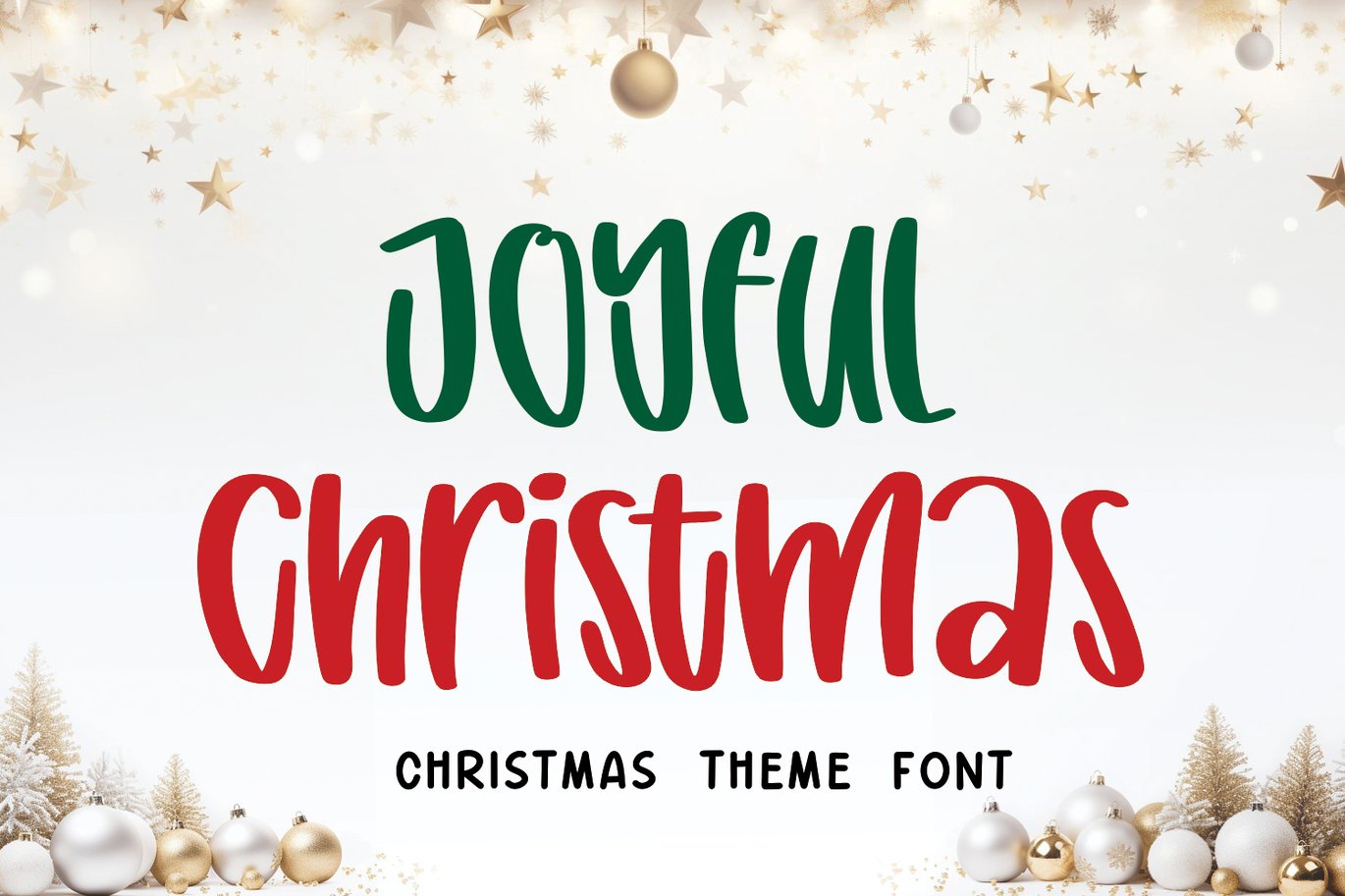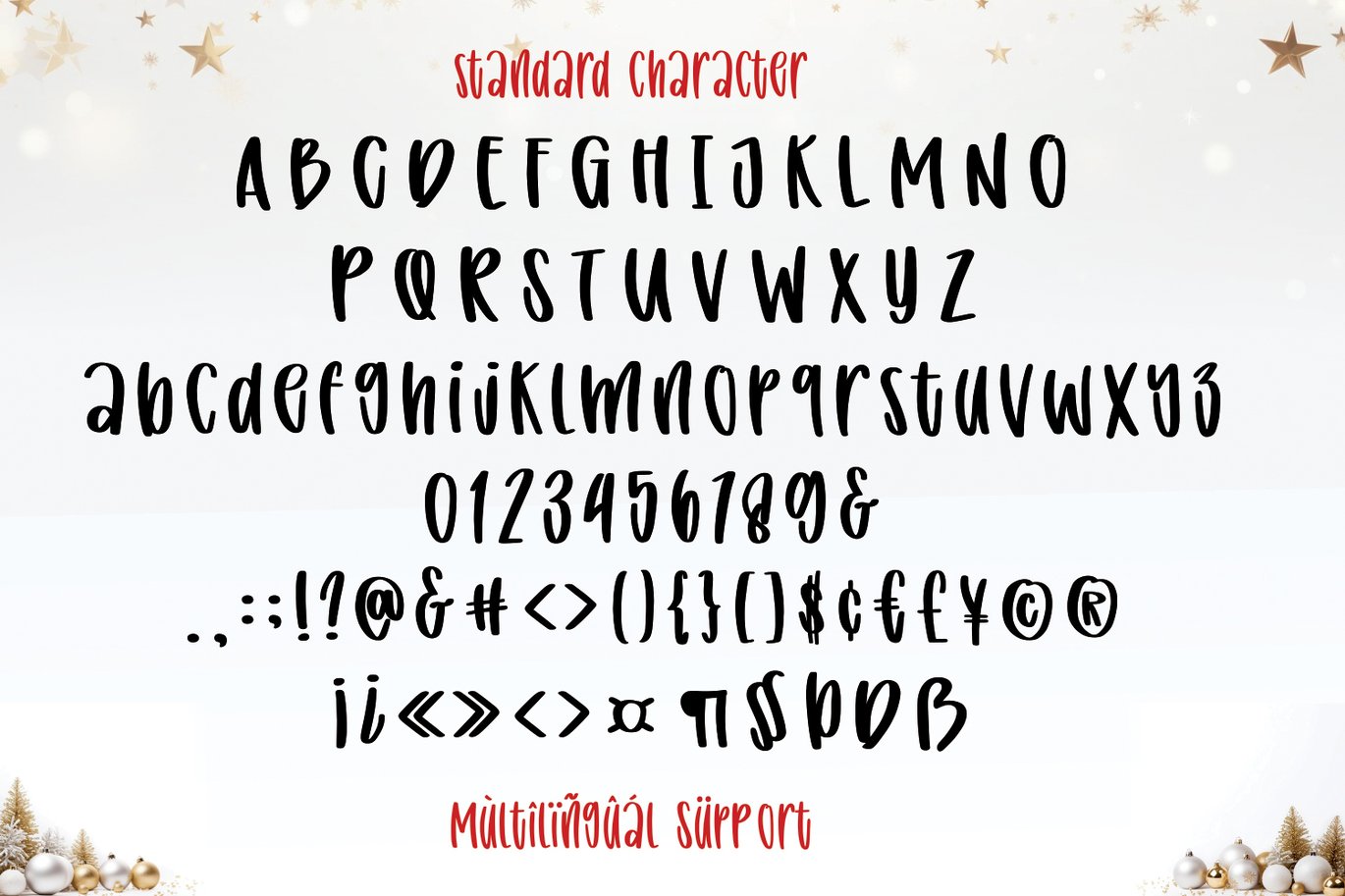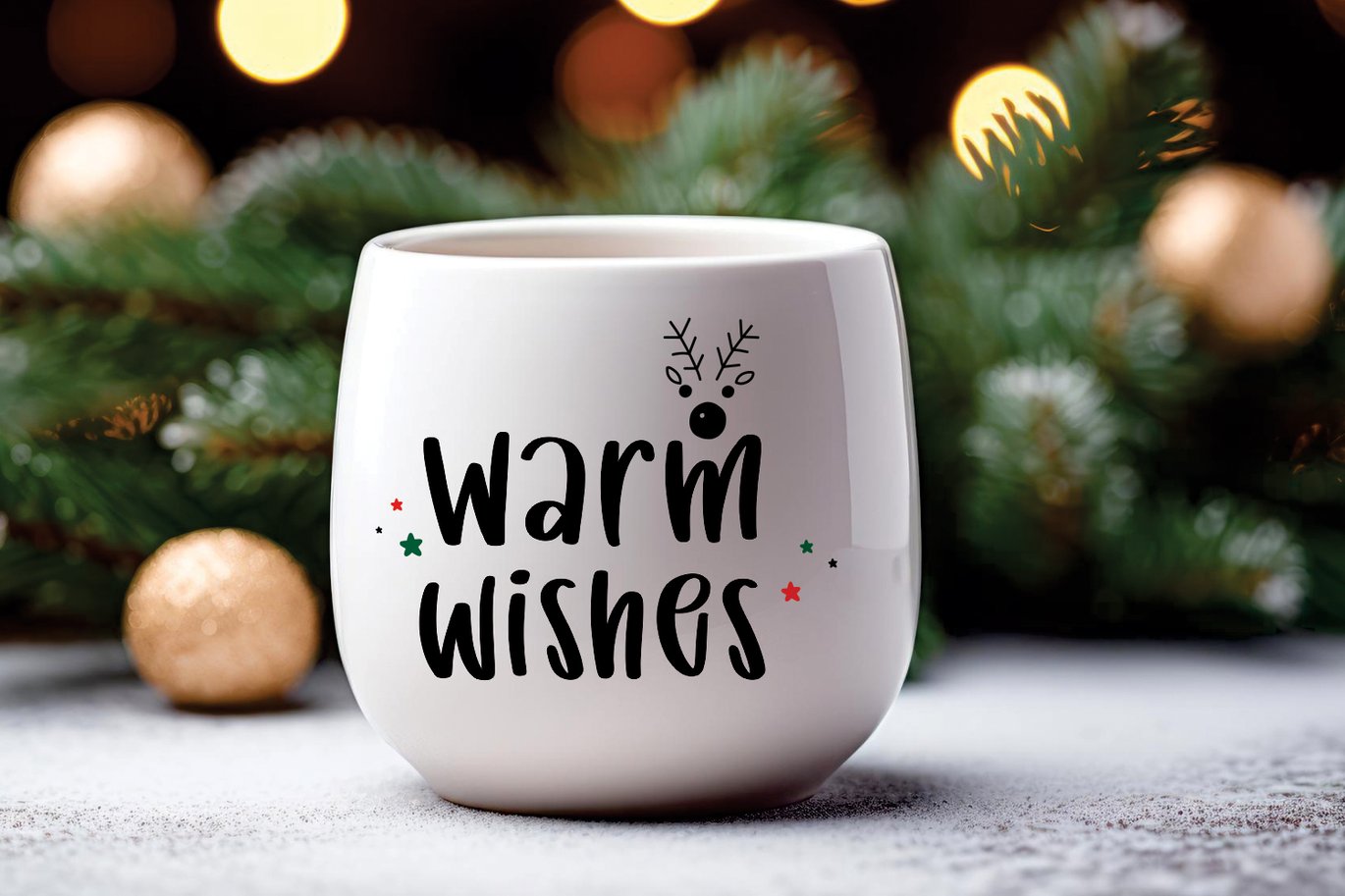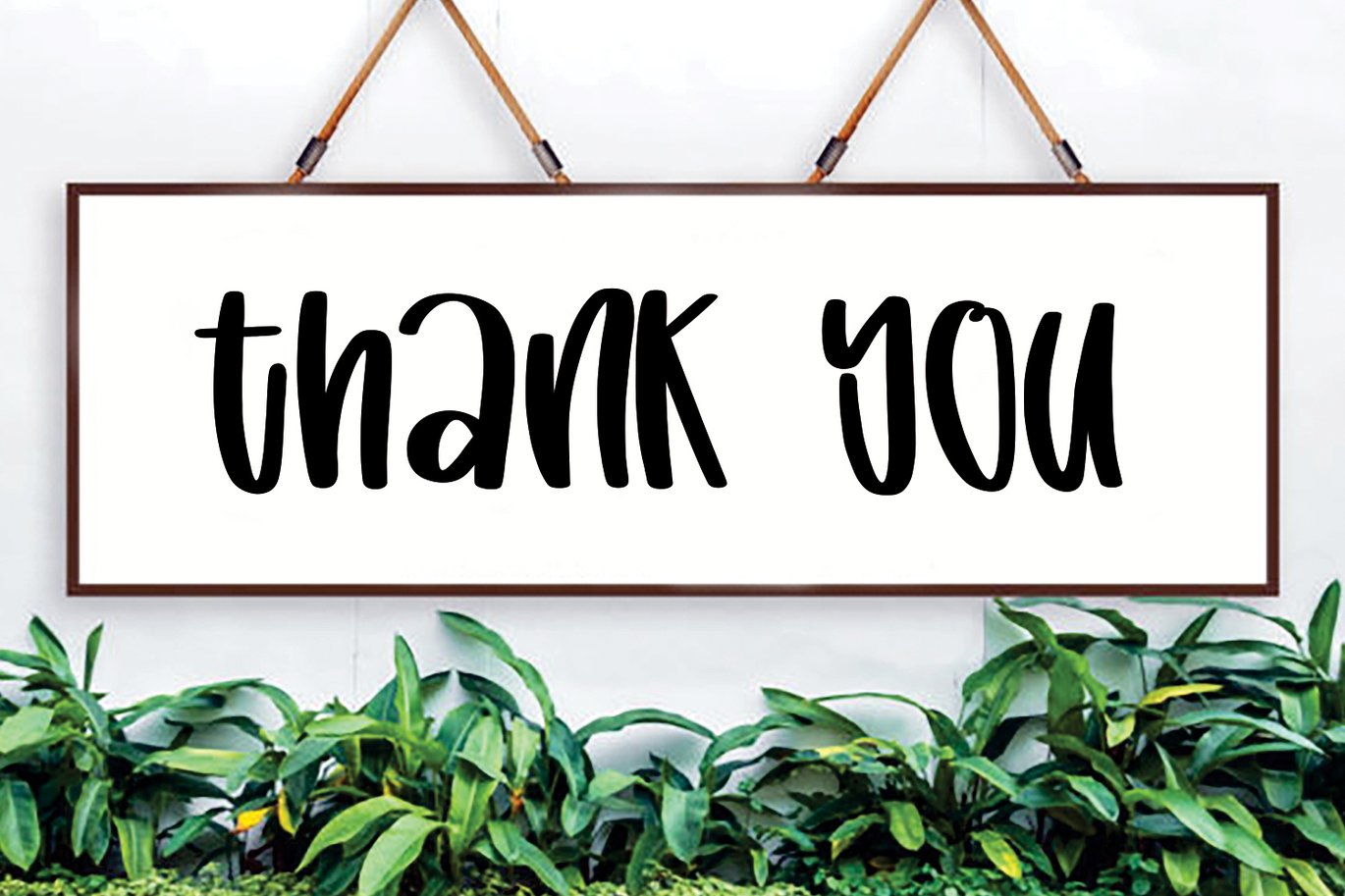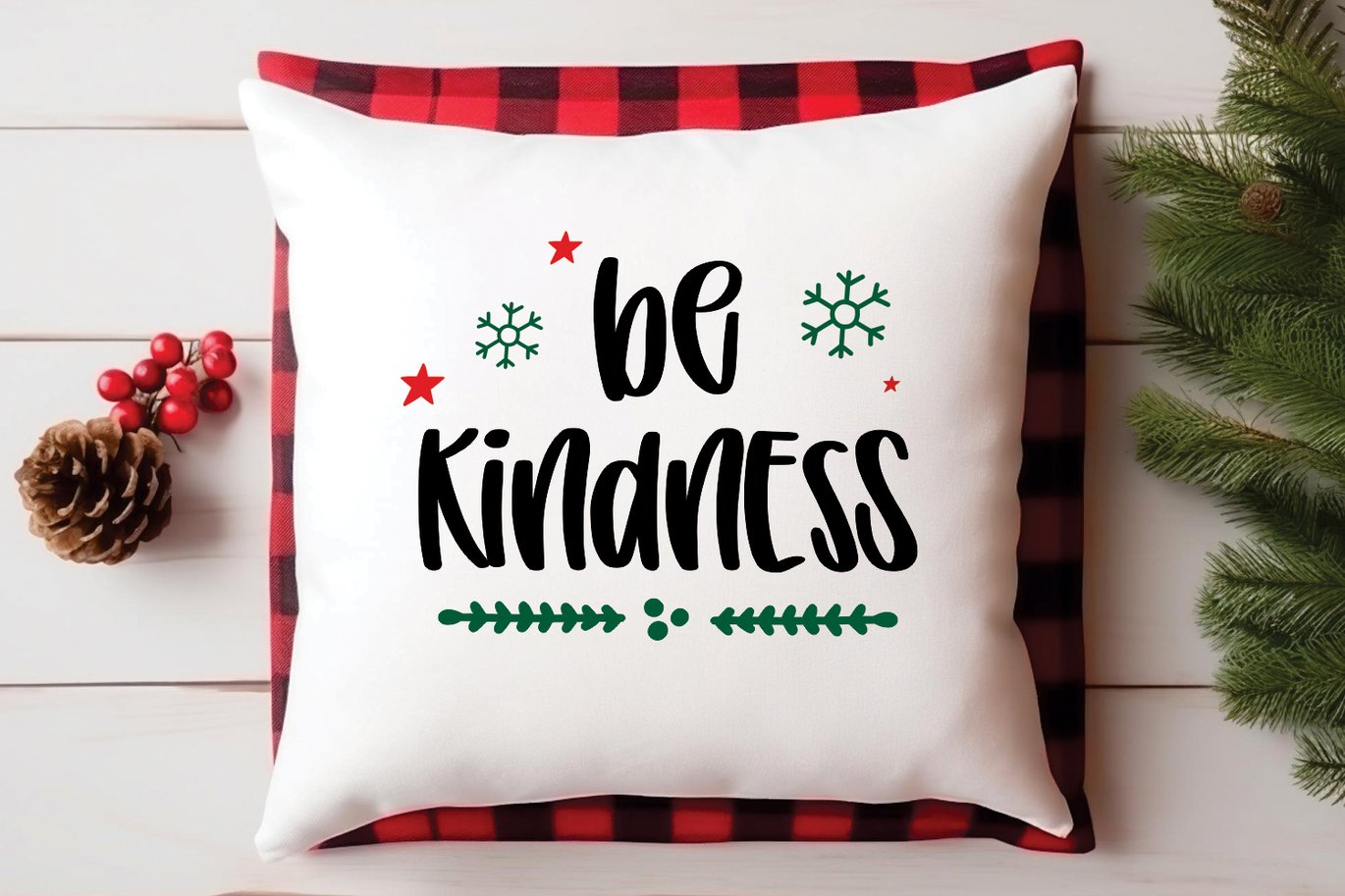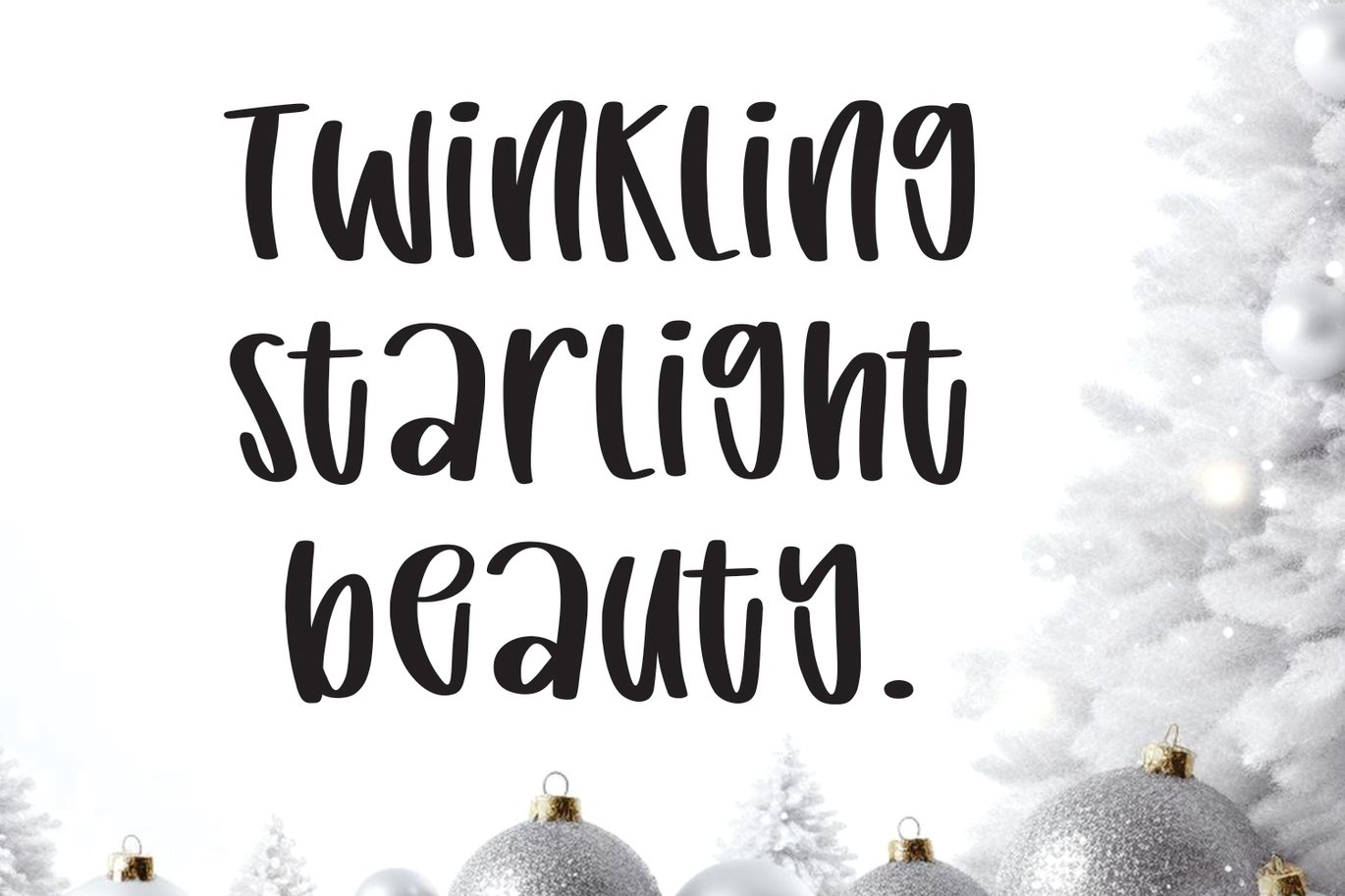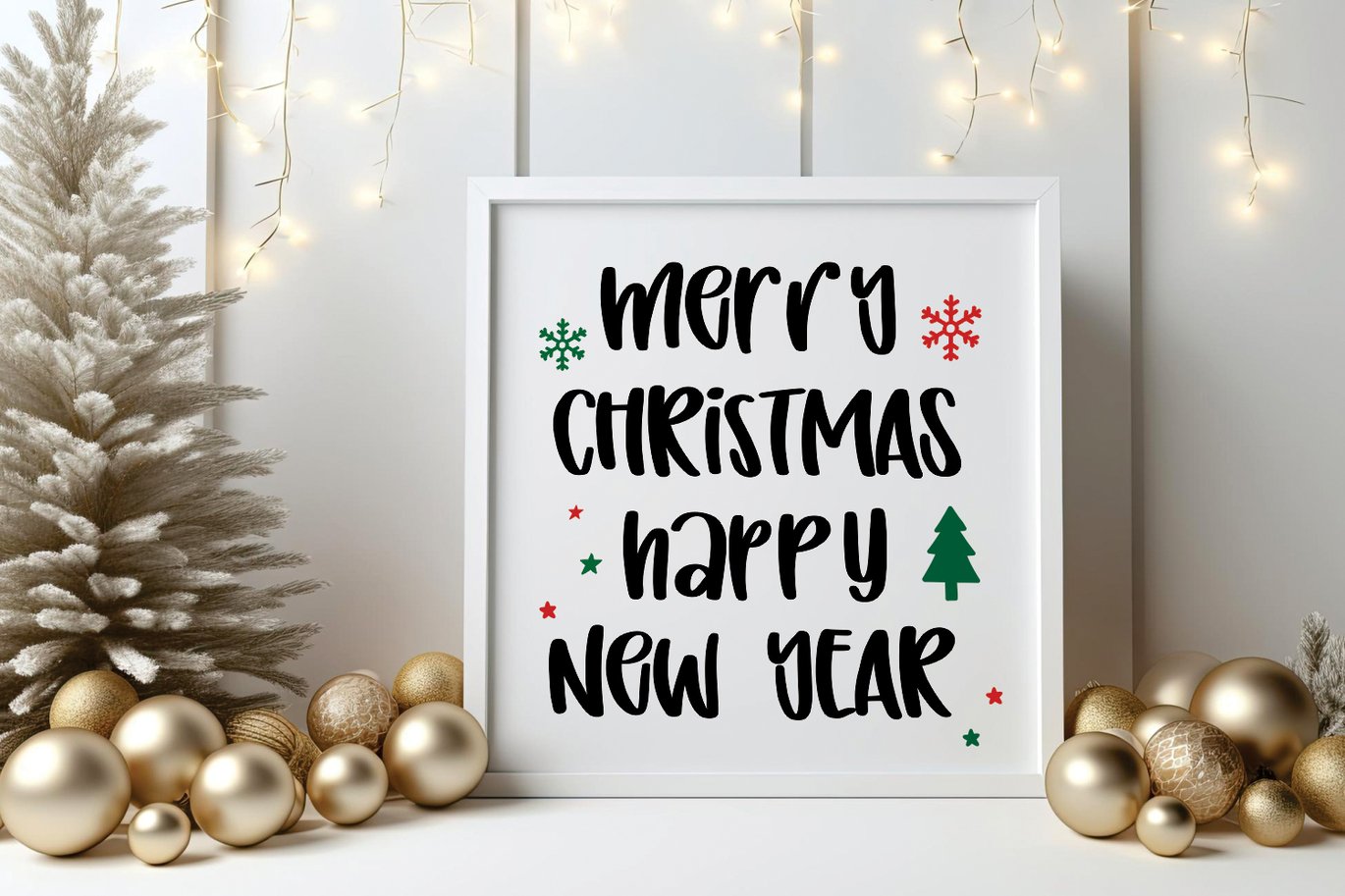
Joyful Christmas – Christmas Font
“Introducing ‘Joyful Christmas,’ a delightful and whimsical font that captures the essence of festive celebrations throughout the year. This cute and fun display typeface is a perfect blend of holiday cheer, winter wonder, and the joyous spirit of Christmas. With each letter exuding a playful charm, ‘Joyful Christmas’ brings to life the magic of not just the holiday season but also the enchanting moments of spring, the cozy warmth of autumn, and the excitement of New Year’s festivities.
Crafted with intricate details reminiscent of holiday crafting and embroidery, this font is a celebration of creativity and merriment. The curves and swirls in each character evoke the coziness of winter nights by the fireplace, the freshness of spring blooms, and the rich hues of autumn leaves. ‘Joyful Christmas’ is more than just a font; it’s a visual representation of the joy and warmth that these special occasions bring.
Whether you’re designing holiday cards, crafting invitations, or adding a touch of festive flair to your projects, ‘Joyful Christmas’ is the perfect choice. Embrace the festive spirit and spread the cheer with this uniquely crafted font that encapsulates the magic of Christmas and the beauty of every season.”